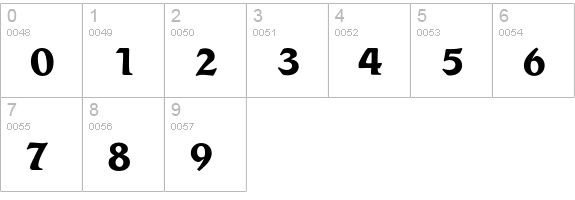
RomicEF-Bold Font Details
RomicEF-Bold is a strong, high-contrast variant in the RomicEF typeface family \xE2\x80\x94 well suited to headlines, attention-grabbing titles, and strong calls-to-action.
RomicEF-Bold is a bold and striking font that exudes elegance and sophistication. Its sleek lines and modern design make it perfect for a wide range of projects, from branding to editorial design. The bold weight of this font commands attention and adds a touch of drama to any text. What sets RomicEF-Bold apart is not just its visual appeal, but also its versatility. Whether you're designing a logo, packaging, or a poster, this font will make your text stand out and leave a lasting impression. Best of all, RomicEF-Bold is available for free download at FontsMarket.com. This means you can easily access this stylish font and incorporate it into your projects without any cost. Don't miss out on the opportunity to enhance your designs with RomicEF-Bold and make a bold statement today.